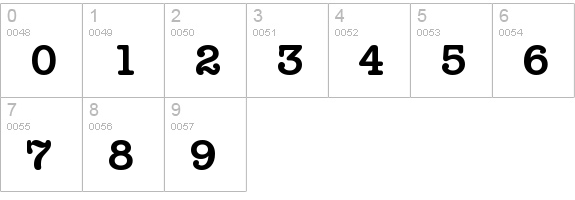
TypewriterSerial-Bold Font Details
TypewriterSerial-Bold is a strong, high-contrast variant in the TypewriterSerial typeface family \xE2\x80\x94 well suited to headlines, attention-grabbing titles, and strong calls-to-action.
TypewriterSerial-Bold is a bold and distinctive font that brings a vintage typewriter aesthetic to your designs. With its strong and impactful look, this font is perfect for creating eye-catching headlines, titles, and logos. The classic monospaced characters give off a timeless feel, while the bold weight commands attention with each stroke. Whether you're working on a retro-themed project or simply want to add a touch of nostalgia to your designs, TypewriterSerial-Bold is the ideal choice. Best of all, TypewriterSerial-Bold is available for free download at FontsMarket.com. This means you can easily access this versatile font and use it in your personal or commercial projects without any cost. Embrace the charm and character of TypewriterSerial-Bold in your designs today and make a bold statement that stands out from the crowd.